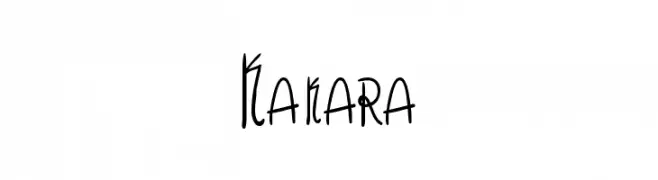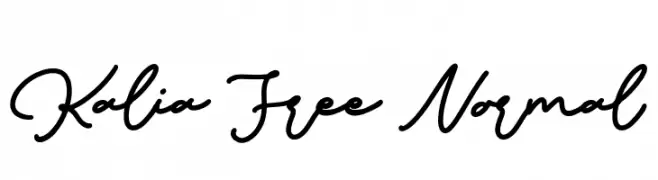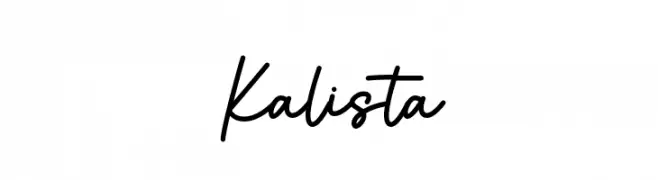
A playful, hand-drawn font with tall, narrow characters and a whimsical style.
A flowing, cursive script font with elegant, interconnected characters.
A bold, geometric font with a three-dimensional, angular design.
A bold, 3D, cartoonish font with a playful, distorted style.
A bold, distorted font with thick, blocky letters and uneven edges.
A bold, angular, and italicized font with a geometric and dynamic style.
A bold, geometric font with a modern, industrial style.
Bold, geometric font with a shadow effect for a 3D appearance.
A lively, fluid handwritten script with smooth curves and a personal touch.
A smooth, flowing script font with a natural handwriting style.